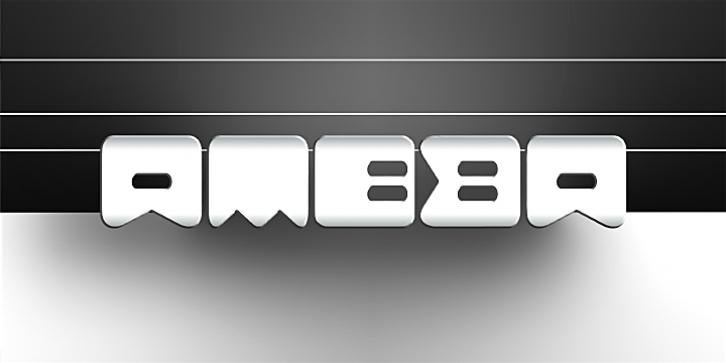
Ameba downloadDesigner: Carlos Matteoli
Publisher: Qbotype
What was the inspiration for designing the font? My inspiration is experimental music
Usage recommendations: could be: Name Djs, conceptual apparatus, modern machines, computers, Hybrid etc.